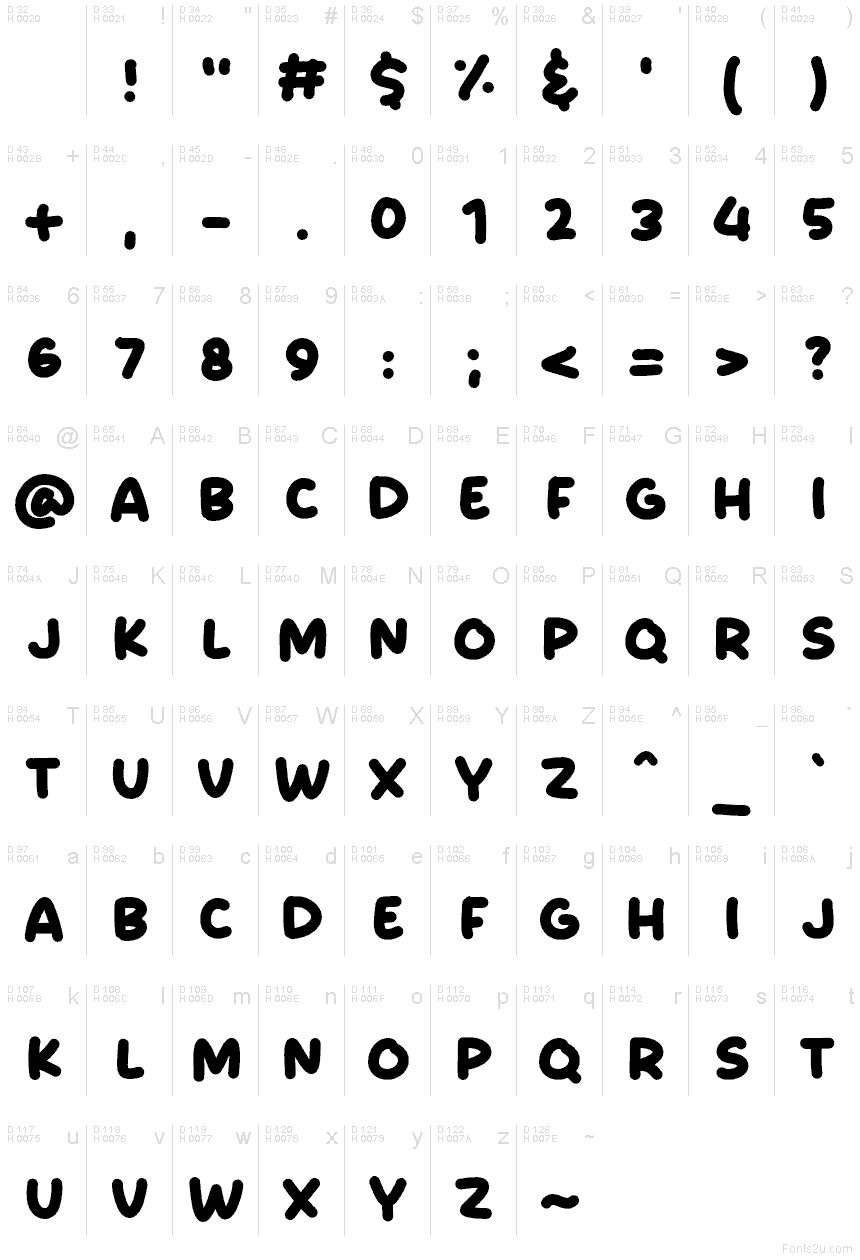
Forest Nature
Forest Nature font by Origin Type is a bold handwritten font made of characters with rounded edges and organic shapes. Each character has a casual aesthetic and is marked by its thick generous strokes for a friendly vibe with bold presence. The font matches personal design projects as well as professional designs meant to attract new customers.
All that makes this free handwritten font suitable for packaging projects, labels, postcards and other printed papers, t-shirt designs, branding projects such as logo design or business cards. Websites including blogs can also use it for their website titles where readability and aesthetics go hand in hand.